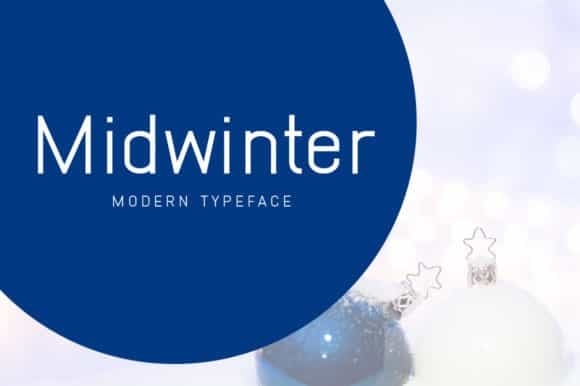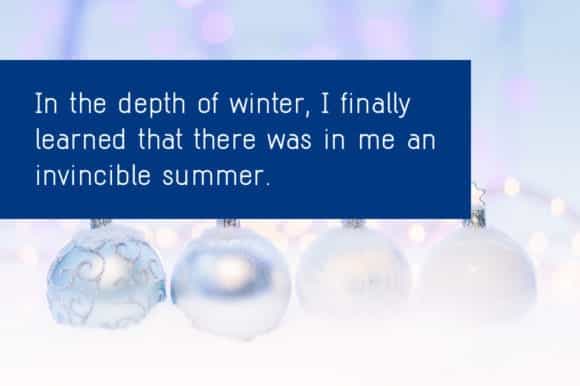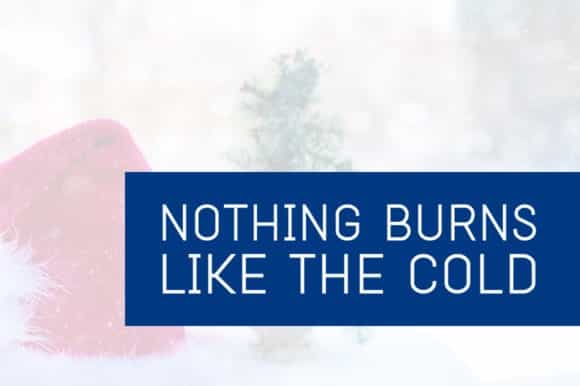
Midwinter is a typeface without serifs and it has a geometrical shape. It appears to be a clean and angular shaped which gives the impression of a futuristic and strong design. In line with single weight, an extended european character set and manually edited kerning is the new symbol.